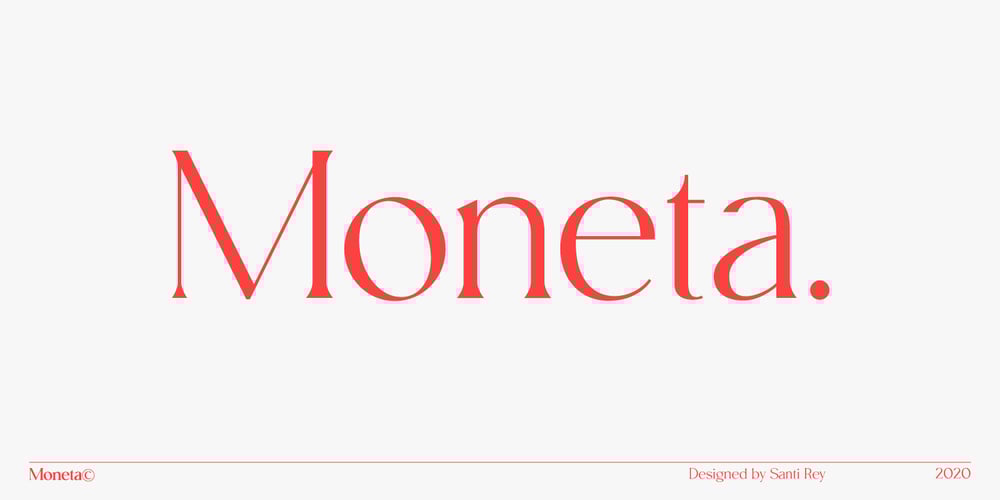
Moneta
Moneta font
Moneta Font Family was designed by Santi Rey and published by Monotype. Moneta contains 4 styles and family package options. Moneta is an elegant transitional serif with high contrast. Its morphology is based on the study of traditional broad-edge pen script. It comes in 4 different weights (Light, Regular, Bold and Black) and has variable features.Designed by Santi Rey and launched on January 2020.